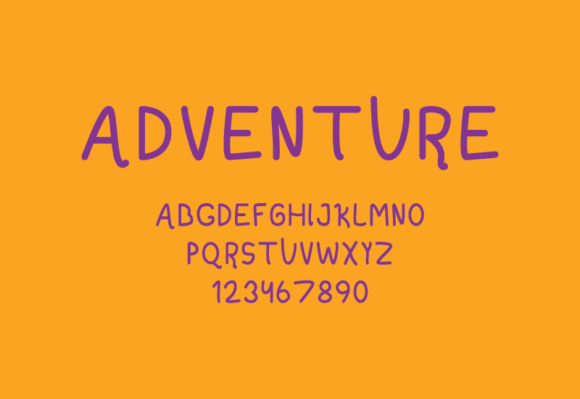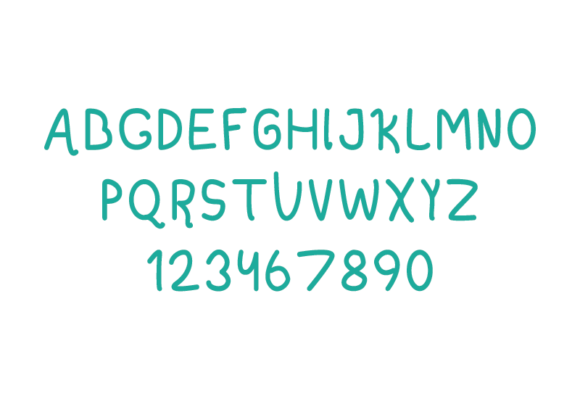
Unleash Your Creativity with Adventure Font: A Playful and Whimsical Typeface
Are you a designer, crafter, or DIY enthusiast looking for a font that captures the essence of adventure and playfulness? Look no further than Adventure Font, a typeface designed to evoke a sense of whimsy and cheerfulness. In this article, we’ll explore the unique features of Adventure Font, its inspiration, and how you can use it to add a touch of personality to your projects.
What is Adventure Font?
Adventure Font is a typeface designed with a playful and adventurous feel to it. It features a set of whimsical, cheerful characters, often reminiscent of handwritten letters or doodles. The font is perfect for projects that require a lighthearted and carefree touch, such as children’s books, craft tutorials, or social media graphics.
Inspiration Behind Adventure Font
The inspiration behind Adventure Font comes from the world of hand-drawn letters and doodles. The font’s creator aimed to capture the imperfections and quirks of handwritten text, making it feel more approachable and friendly. The result is a typeface that exudes a sense of fun and spontaneity, perfect for projects that require a personal touch.
Key Features of Adventure Font
So, what makes Adventure Font so special? Here are some of its key features:
- Whimsical characters: Adventure Font features a set of unique and playful characters, each with its own personality.
- Handwritten feel: The font has a handwritten feel, making it perfect for projects that require a personal touch.
- Cheerful and upbeat: The font’s design is cheerful and upbeat, making it ideal for projects that require a positive and energetic vibe.
- Highly legible: Despite its playful nature, Adventure Font is highly legible, making it suitable for body text and headings.
Using Adventure Font in Your Projects
Adventure Font is a versatile typeface that can be used in a variety of projects, including:
- Children’s books and educational materials: The font’s playful nature makes it perfect for children’s books, activity sheets, and educational materials.
- Craft tutorials and patterns: Adventure Font is ideal for craft tutorials, sewing patterns, and other DIY projects that require a personal touch.
- Social media graphics and blog posts: The font’s cheerful and upbeat design makes it perfect for social media graphics, blog posts, and other online content.
- Signage and display graphics: Adventure Font can be used for signage, display graphics, and other promotional materials that require a bold and eye-catching design.
Tips for Using Adventure Font
Here are some tips for using Adventure Font in your projects:
- Use it sparingly: Adventure Font is a bold and playful typeface, so use it sparingly to avoid overwhelming your design.
- Pair it with a neutral font: Pair Adventure Font with a neutral font, such as Arial or Helvetica, to create contrast and balance in your design.
- Experiment with colors and textures: Adventure Font looks great with bright colors and textures, so don’t be afraid to experiment and add some personality to your design.
Adventure Font is a unique and playful typeface that’s perfect for designers, crafters, and DIY enthusiasts looking to add a touch of personality to their projects. With its whimsical characters, handwritten feel, and cheerful design, Adventure Font is sure to inspire creativity and bring a sense of fun to your work. So why not give it a try and see where your imagination takes you?